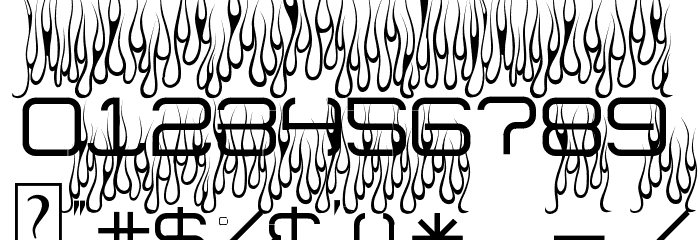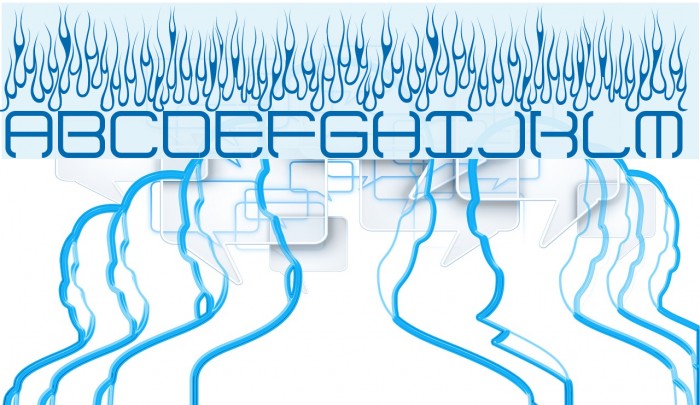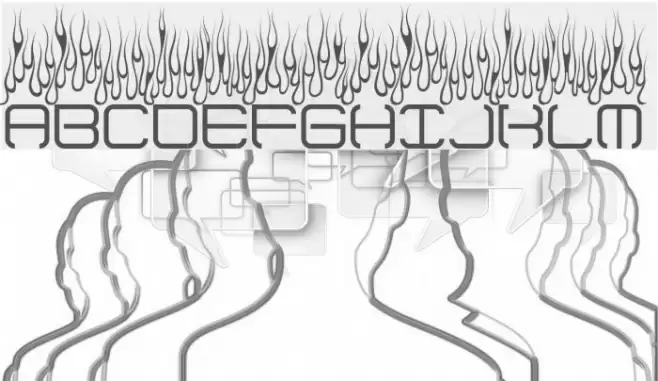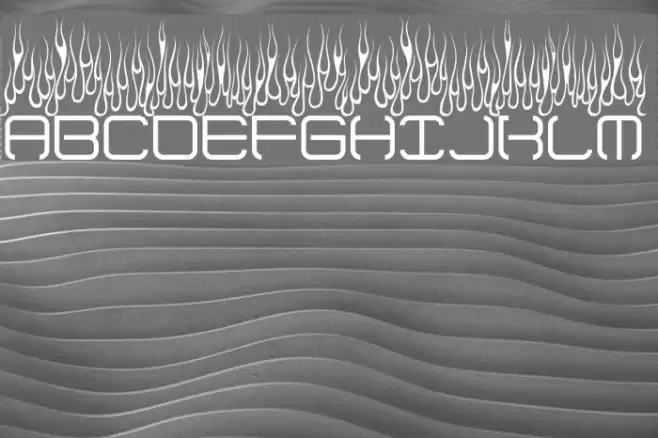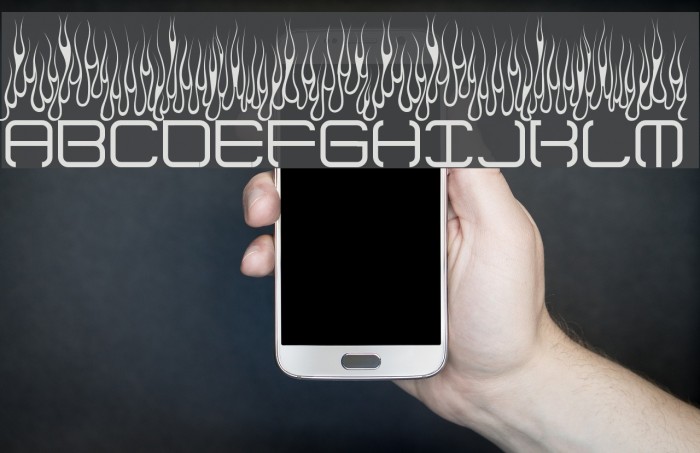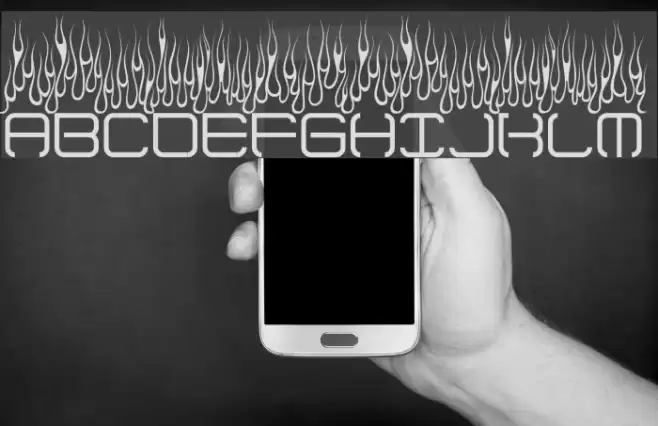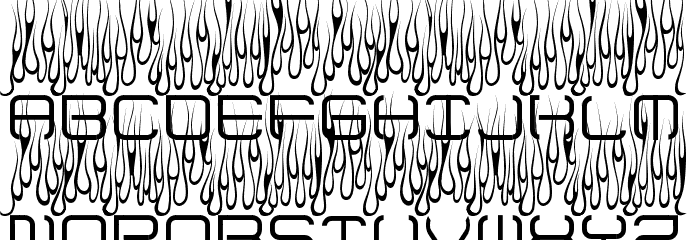
Up In Flames Font
Up In Flames Description
This font features a striking and dynamic design with each character engulfed in stylized flames. The uppercase and lowercase letters, as well as numbers and special characters, are all adorned with intricate flame motifs that rise from the top of each glyph. The characters themselves are bold and geometric, providing a strong contrast to the fluid and organic flame patterns. This creates a unique visual effect that is both eye-catching and memorable. The font's design is ideal for projects that require a sense of energy, intensity, or a fiery theme.